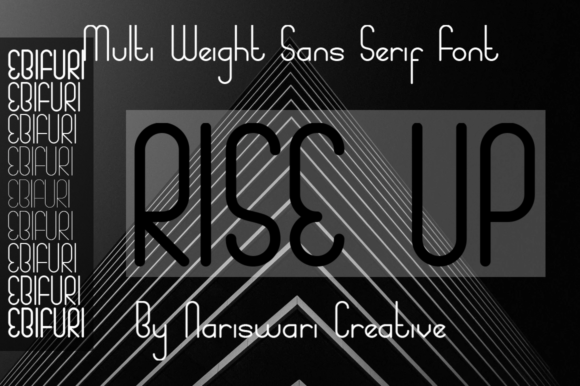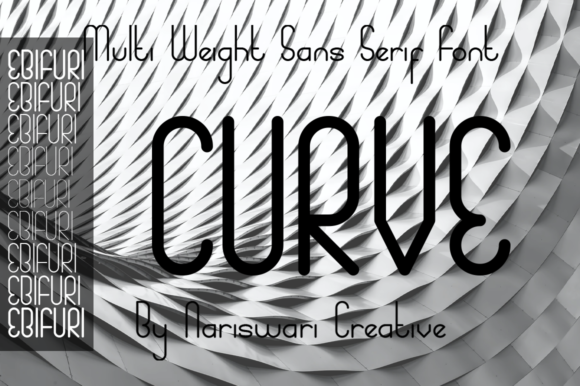
Discover the Power of Ebifuri Font: Elevate Your Designs with a Simple yet Sharp Sans Serif
Are you on the hunt for a font that can add a touch of simplicity and sophistication to your designs? Look no further than Ebifuri Font. This sans serif font is making waves in the design community, and for good reason. Its clean lines, sharp edges, and effortless charm make it the perfect choice for designers and crafters looking to elevate their work.
What is Ebifuri Font?
Ebifuri Font is a modern sans serif font that boasts a unique blend of simplicity and style. Its sleek lines and precise curves make it a versatile choice for a wide range of design projects, from branding and advertising to packaging and digital media. Whether you’re working on a logo, brochure, or website, Ebifuri Font is sure to make a lasting impression.
Key Features of Ebifuri Font
- Simple and Sharp Design: Ebifuri Font features a clean and minimalist design that exudes confidence and sophistication.
- Sans Serif Style: The font’s sans serif style makes it perfect for digital media, as it remains clear and legible even at small sizes.
- Highly Versatile: Ebifuri Font can be used for a wide range of design projects, from print materials to digital media.
- Easily Readable: The font’s clear and precise lines make it easy to read, even for extended periods of time.
Endless Possibilities with Ebifuri Font
One of the best things about Ebifuri Font is its incredible versatility. Whether you’re working on a branding project, creating a website, or designing a brochure, this font can help you achieve your goals. Its simple yet sharp design makes it perfect for:
- Digital Media: Use Ebifuri Font to create stunning digital content, from social media graphics to website headers.
- Print Materials: Add a touch of sophistication to your print materials, including brochures, flyers, and business cards.
- Packaging Design: Make your products stand out on store shelves with eye-catching packaging that features Ebifuri Font.
Why Choose Ebifuri Font?
With so many fonts to choose from, why should you choose Ebifuri Font? Here are just a few reasons why designers and crafters are falling in love with this amazing font:
- Unique Style: Ebifuri Font offers a fresh and unique perspective on sans serif fonts, making it perfect for designers looking to stand out from the crowd.
- Ease of Use: The font is incredibly easy to use, even for those with limited design experience.
- High-Quality Design: Ebifuri Font is designed with precision and care, ensuring that it looks amazing in any design project.
Get Creative with Ebifuri Font
Ready to unlock the full potential of Ebifuri Font? Here are a few tips for getting the most out of this amazing font:
- Experiment with Different Sizes: Ebifuri Font looks amazing in a variety of sizes, from small and delicate to large and bold.
- Play with Color: Try pairing Ebifuri Font with different colors and textures to create a unique and eye-catching design.
- Mix and Match with Other Fonts: Don’t be afraid to combine Ebifuri Font with other fonts to create a truly unique design.
In conclusion, Ebifuri Font is a simple yet powerful sans serif font that can elevate your designs to new heights. Its clean lines, sharp edges, and effortless charm make it the perfect choice for designers and crafters looking to add a touch of sophistication to their work. Whether you’re working on a logo, website, or print materials, Ebifuri Font is sure to inspire your creativity and help you achieve your design goals.